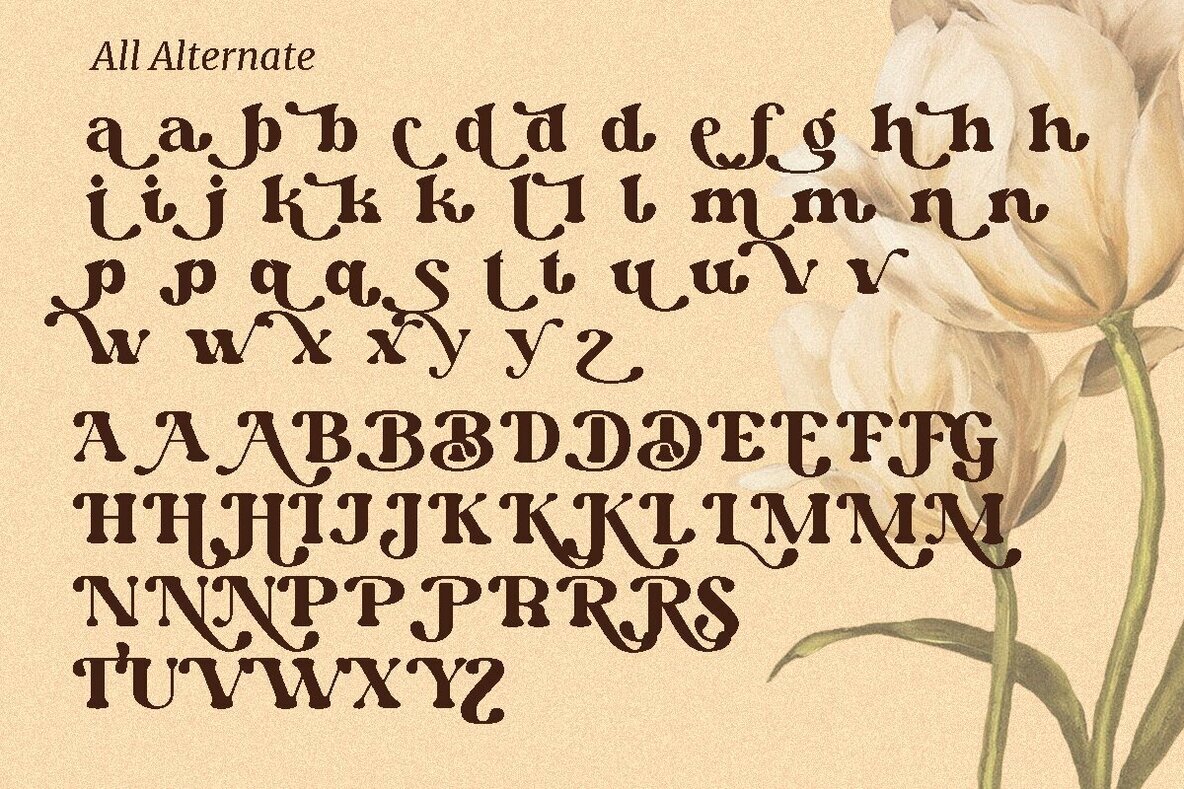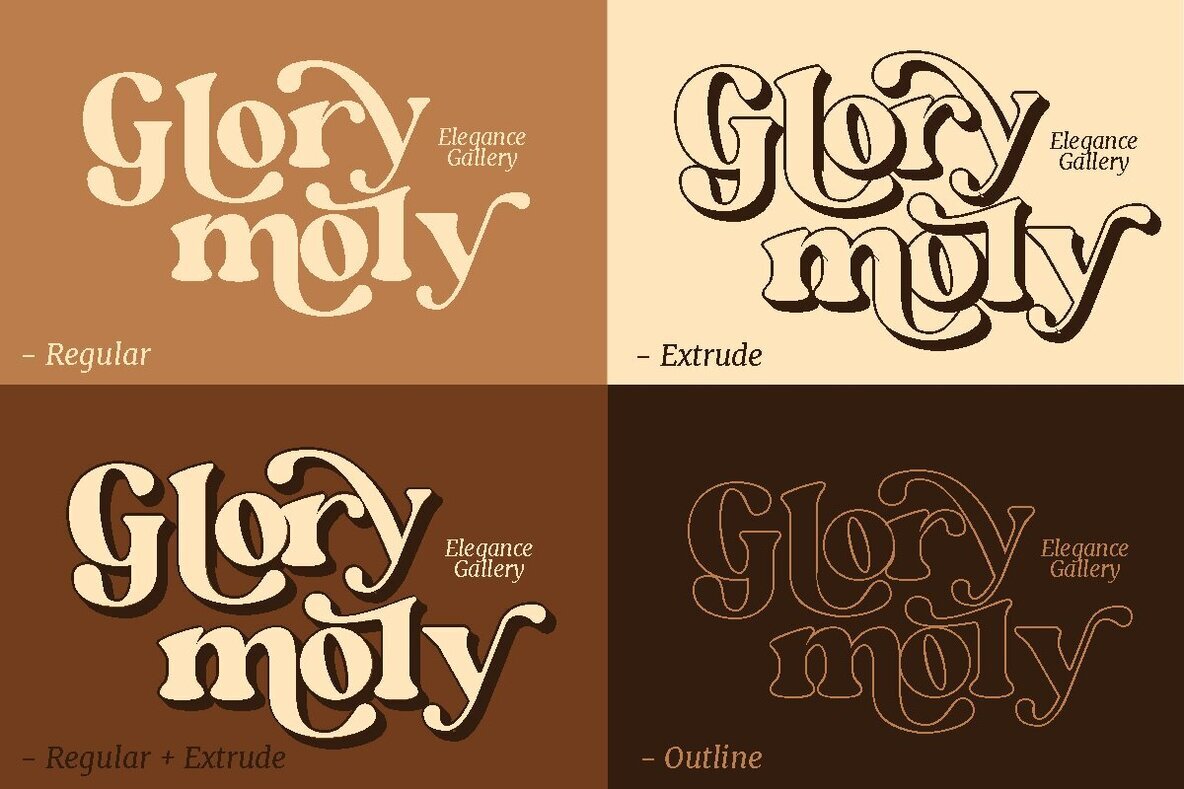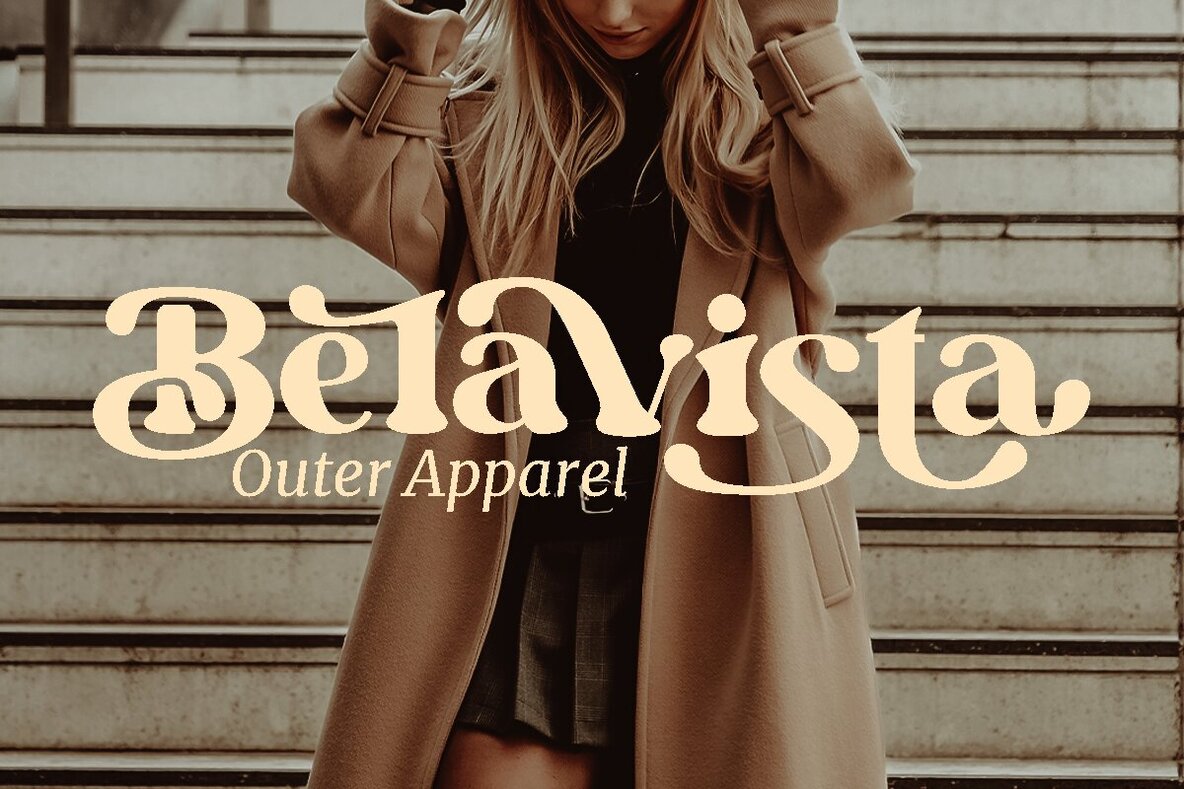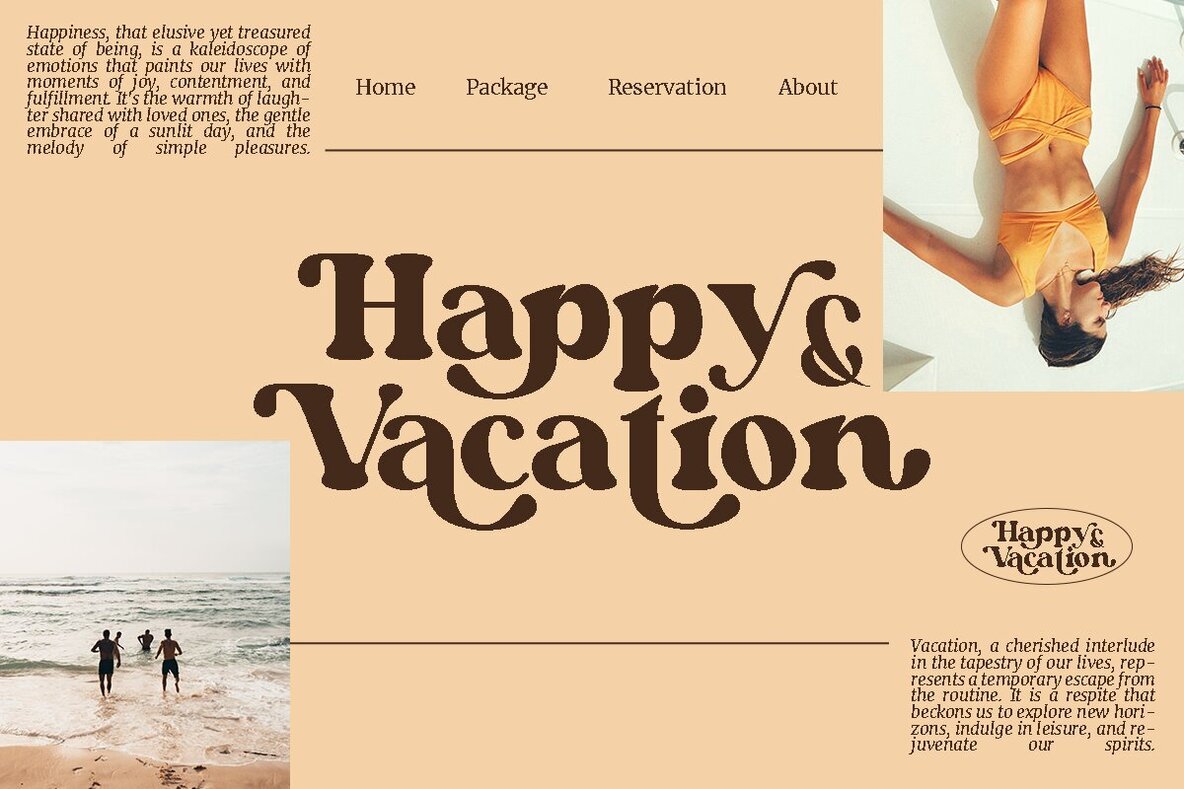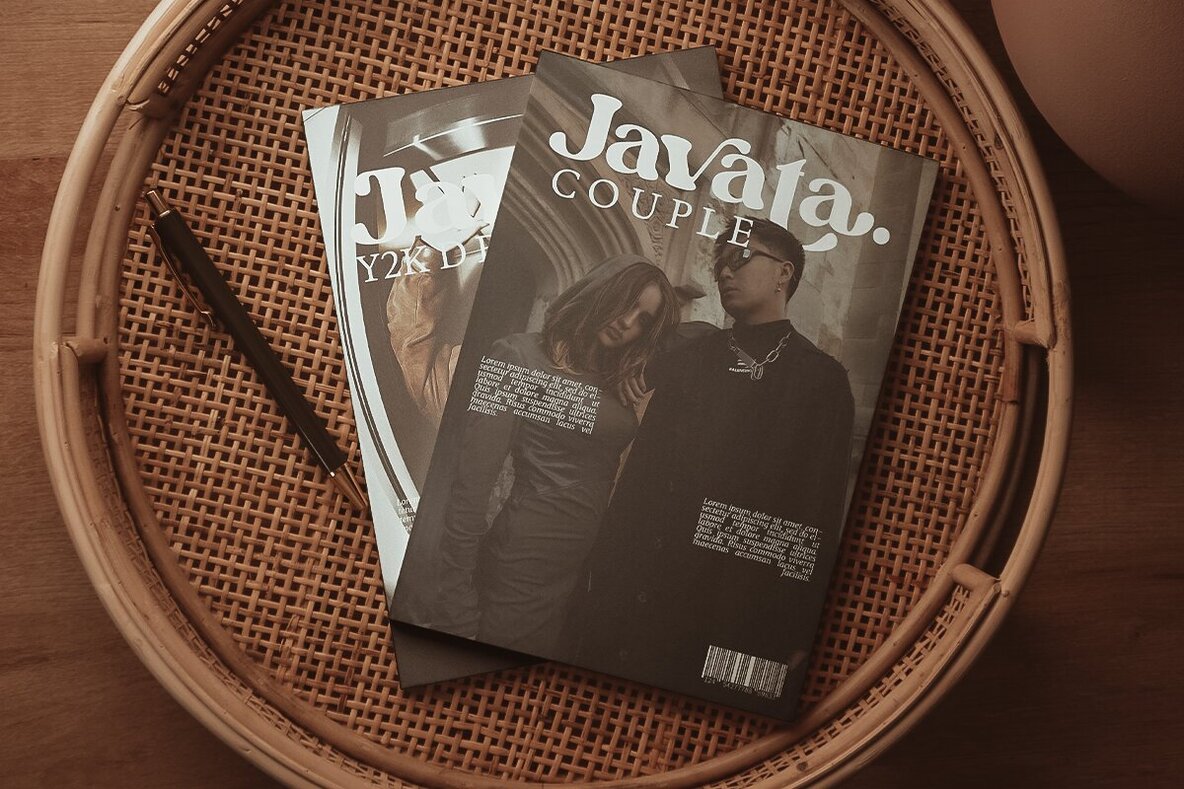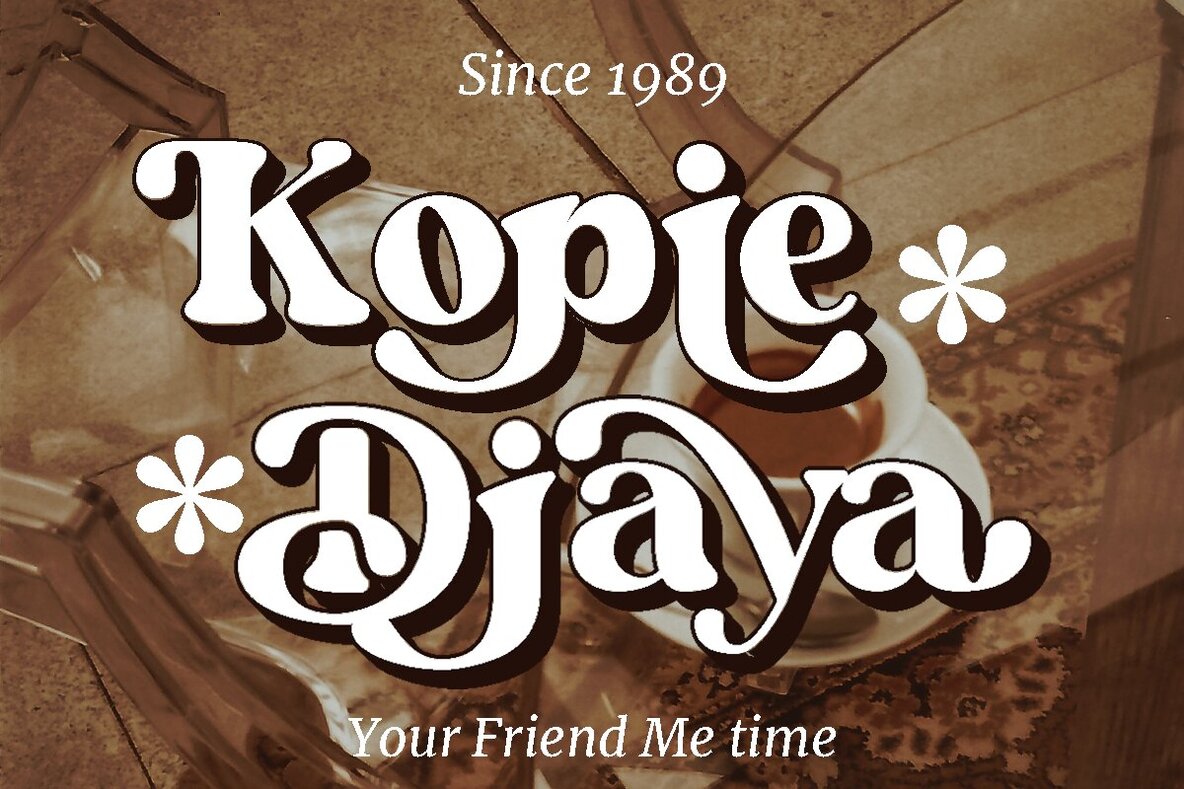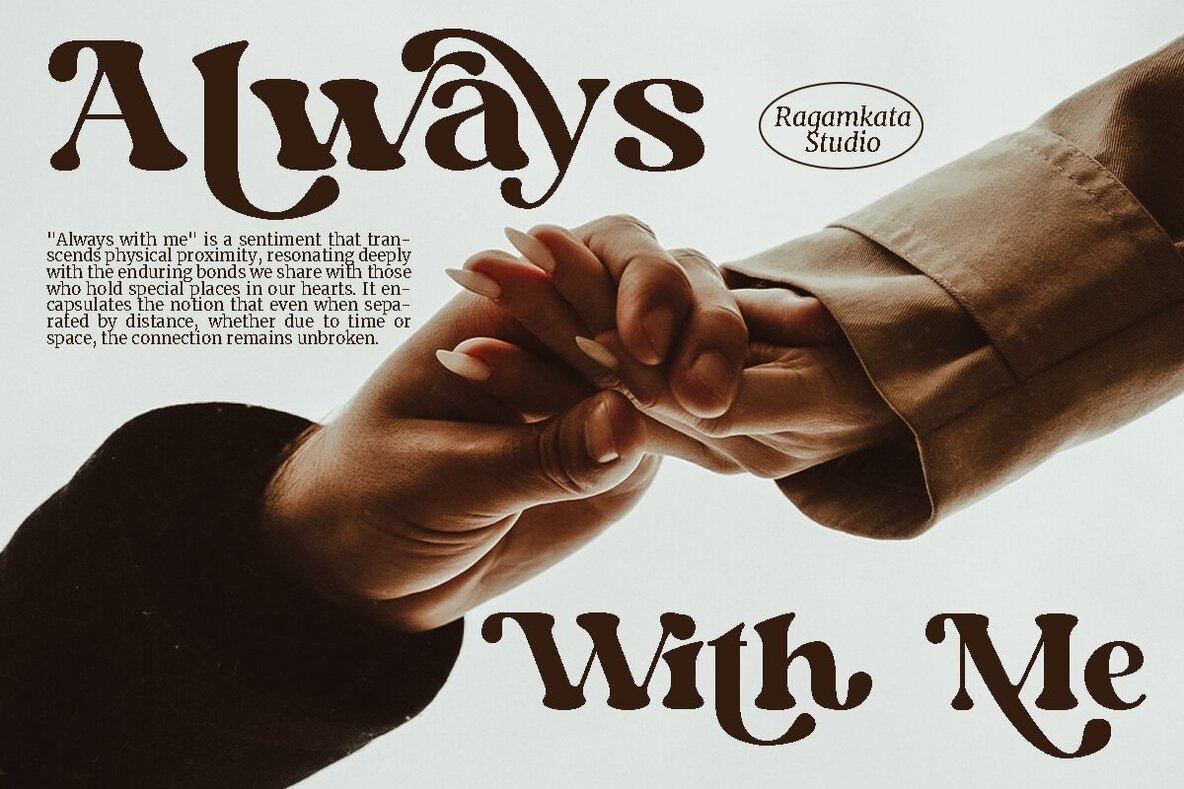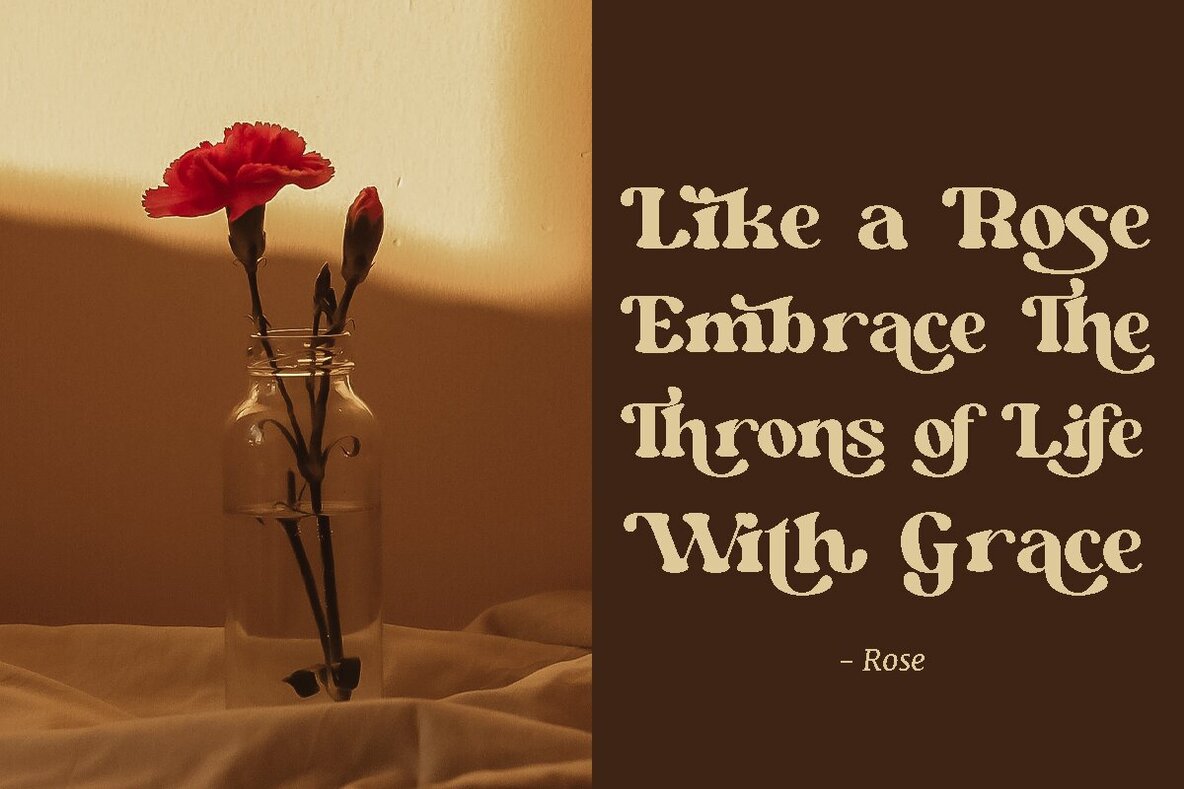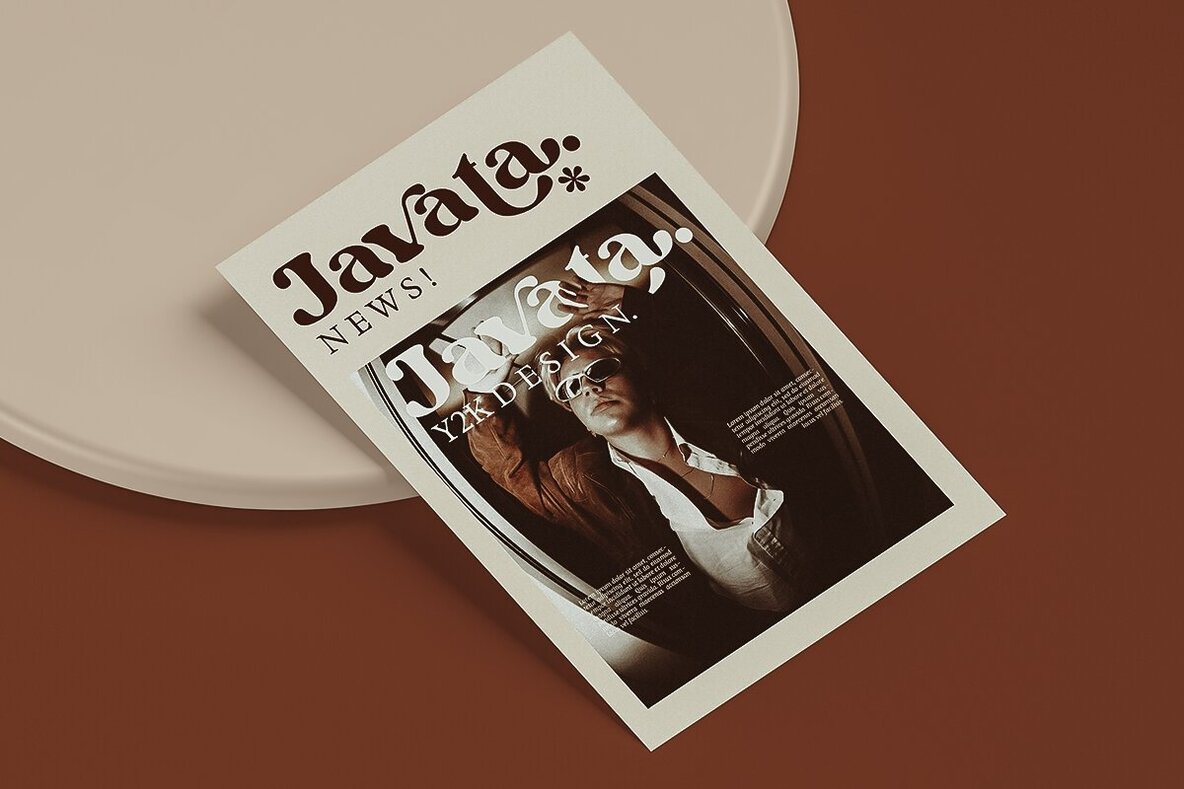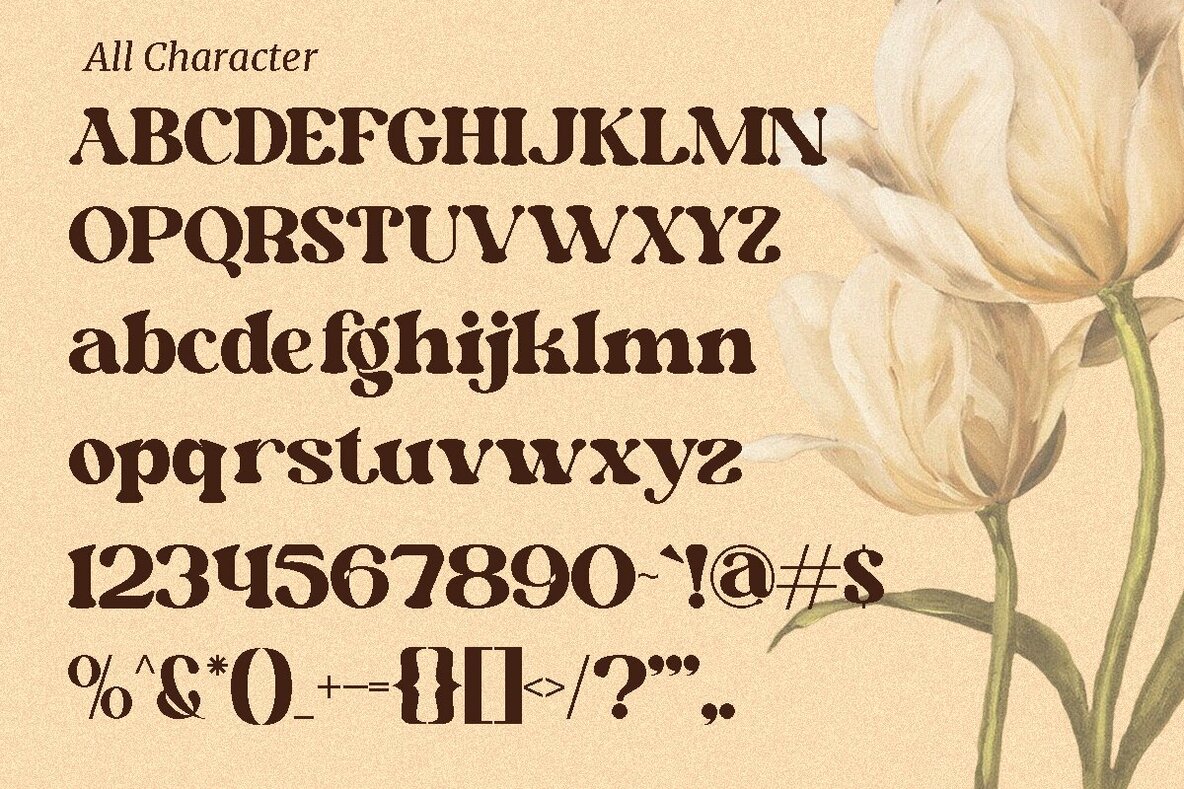
Dianda Font
Dianda is a stylish serif font that combines retro flair with bold presence, making it ideal for logos, magazines, and social media projects. It features a unique combination of uppercase, lowercase, numbers, punctuation, and multilingual characters, along with alternates and ligatures. Ragamkata StudioDianda: Retro Serif with Bold Versatility